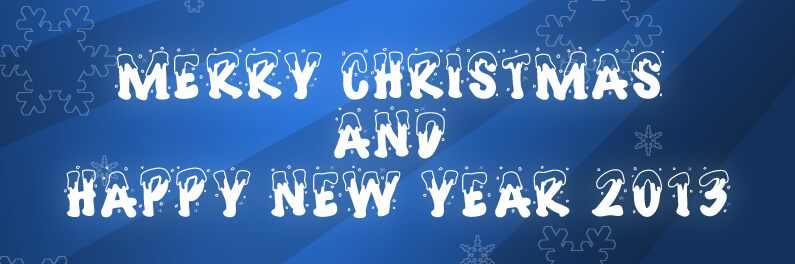
PW Joyeux Noel is a free Christmas cartoon display font with broad, bouncy letters, uneven contours, and a lively scatter of flakes and dots. Snowy caps sag over each top in rounded drips.
A children's holiday poster is an especially good home for its chunky shapes, with seasonal packaging, party invitations, and shop-window signage offering equally suitable settings. The snow topping lets the words become part of an illustrated winter scene, echoing frosted roofs, falling flakes, and the sugared surfaces of freshly baked festive treats on nearby stalls.